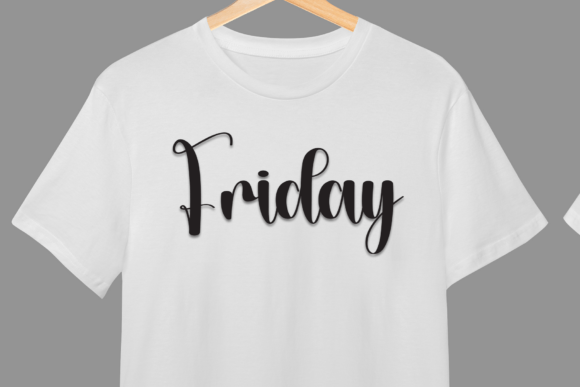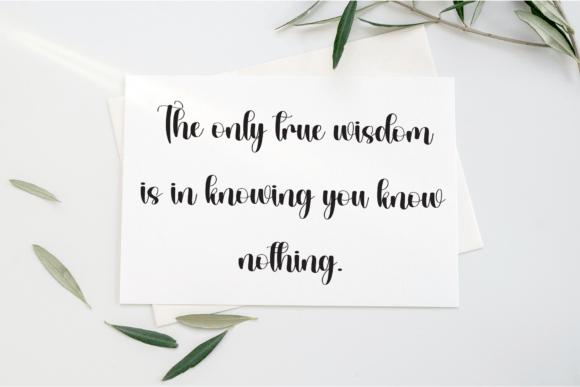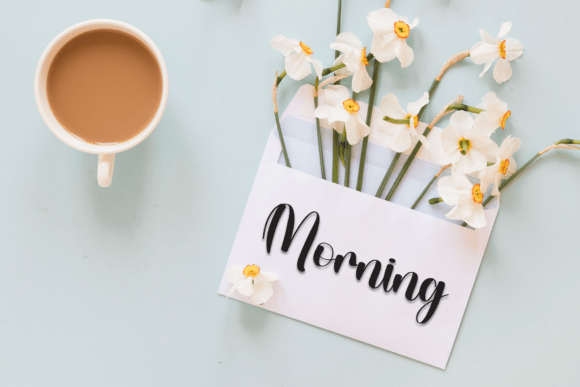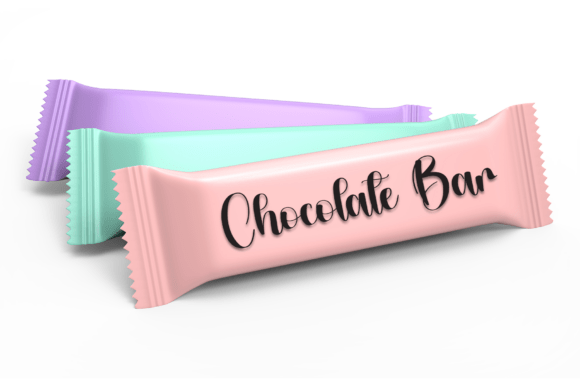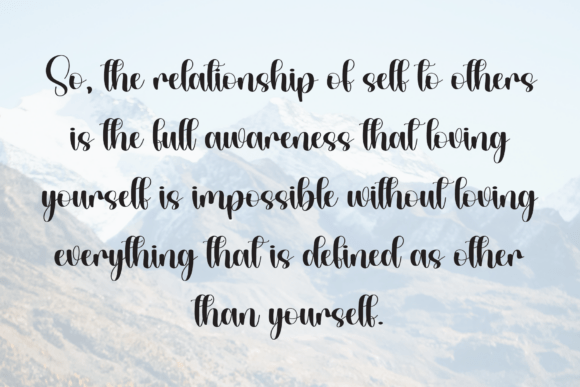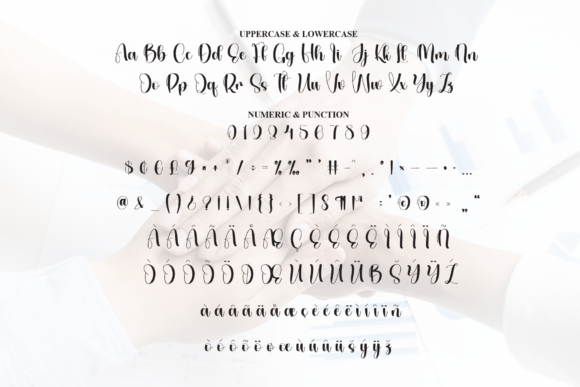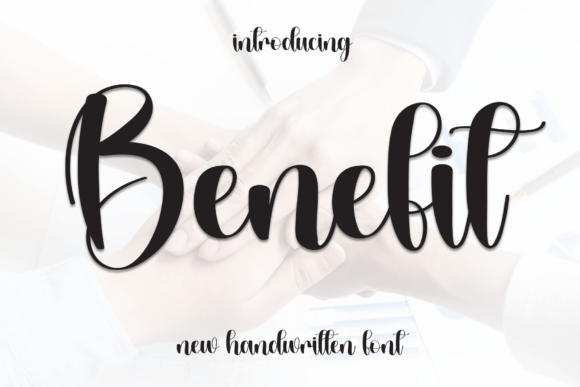
Introducing Benefit Font: Elevate Your Designs with Artistic Flair and Contemporary Elegance
In the world of typography, fonts play a crucial role in conveying the tone and personality of a design. For designers and crafters seeking to add a touch of sophistication and creativity to their work, Benefit Font is an exceptional choice. This stylish script font is designed to exude artistic flair and contemporary elegance, making it perfect for a wide range of design applications.
The Characteristics of Benefit Font
Benefit Font boasts fluid brush strokes, dynamic curves, and expressive letterforms that capture the essence of hand-painted calligraphy with a modern twist. The font’s natural flow and vibrant character make it an excellent choice for designers looking to add a creative and sophisticated touch to their work. Each letterform is carefully crafted to convey a sense of elegance and refinement, making Benefit Font suitable for high-end designs and projects.
Design Applications for Benefit Font
Benefit Font is incredibly versatile and can be used in various design applications, including:
• Logos: Create a lasting impression with a custom logo that showcases your brand’s personality and style.
• Invitations: Add a touch of elegance and sophistication to your event invitations, making them truly unforgettable.
• Packaging: Elevate your product packaging with a font that exudes luxury and refinement.
• Social Media Graphics: Stand out on social media with eye-catching graphics that showcase your brand’s creative side.
The Benefits of Using Benefit Font
Benefit Font offers numerous benefits for designers and crafters, including:
• Visual Impact: The font’s unique and expressive letterforms are sure to grab attention and leave a lasting impression.
• Versatility: Benefit Font can be used in a wide range of design applications, from logos and invitations to packaging and social media graphics.
• Elegance: The font’s sophisticated and refined aesthetic makes it perfect for high-end designs and projects.
• Creativity: Benefit Font’s artistic flair and contemporary elegance inspire creativity and imagination.
Tips for Using Benefit Font Effectively
To get the most out of Benefit Font, consider the following tips:
• Use it sparingly: Benefit Font is best used sparingly to create a lasting impression. Use it as a headline font or for key messaging to draw attention.
• Pair it with complementary fonts: Combine Benefit Font with complementary fonts to create visual interest and hierarchy.
• Experiment with colors: Benefit Font looks stunning in a range of colors. Experiment with different hues and shades to find the perfect match for your design.
Benefit Font is a stylish script font that offers a unique blend of artistic flair and contemporary elegance. With its fluid brush strokes, dynamic curves, and expressive letterforms, it’s perfect for designers and crafters seeking to add a creative and sophisticated touch to their work. Whether you’re creating logos, invitations, packaging, or social media graphics, Benefit Font is an excellent choice. Its versatility, elegance, and visual impact make it an essential font for any design collection.